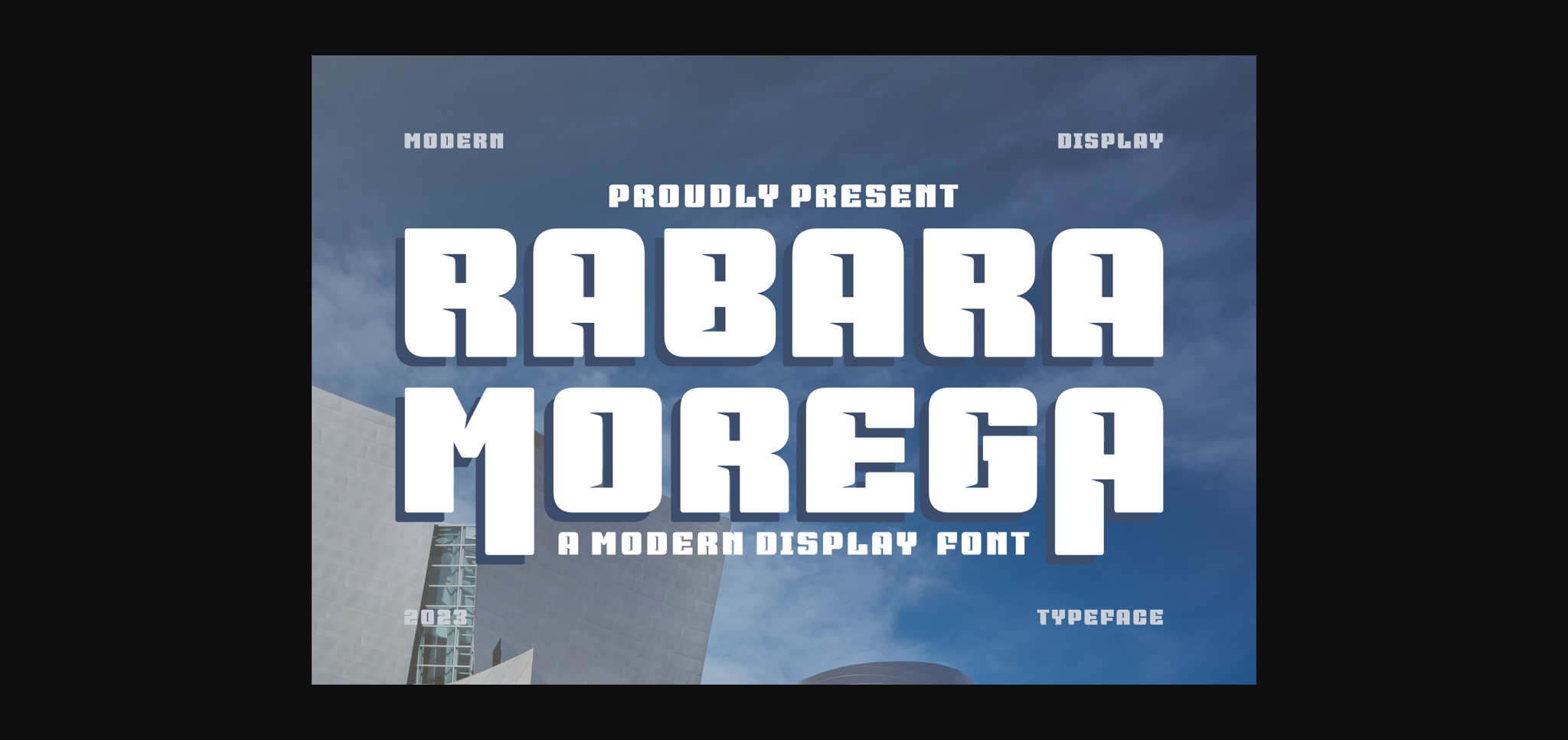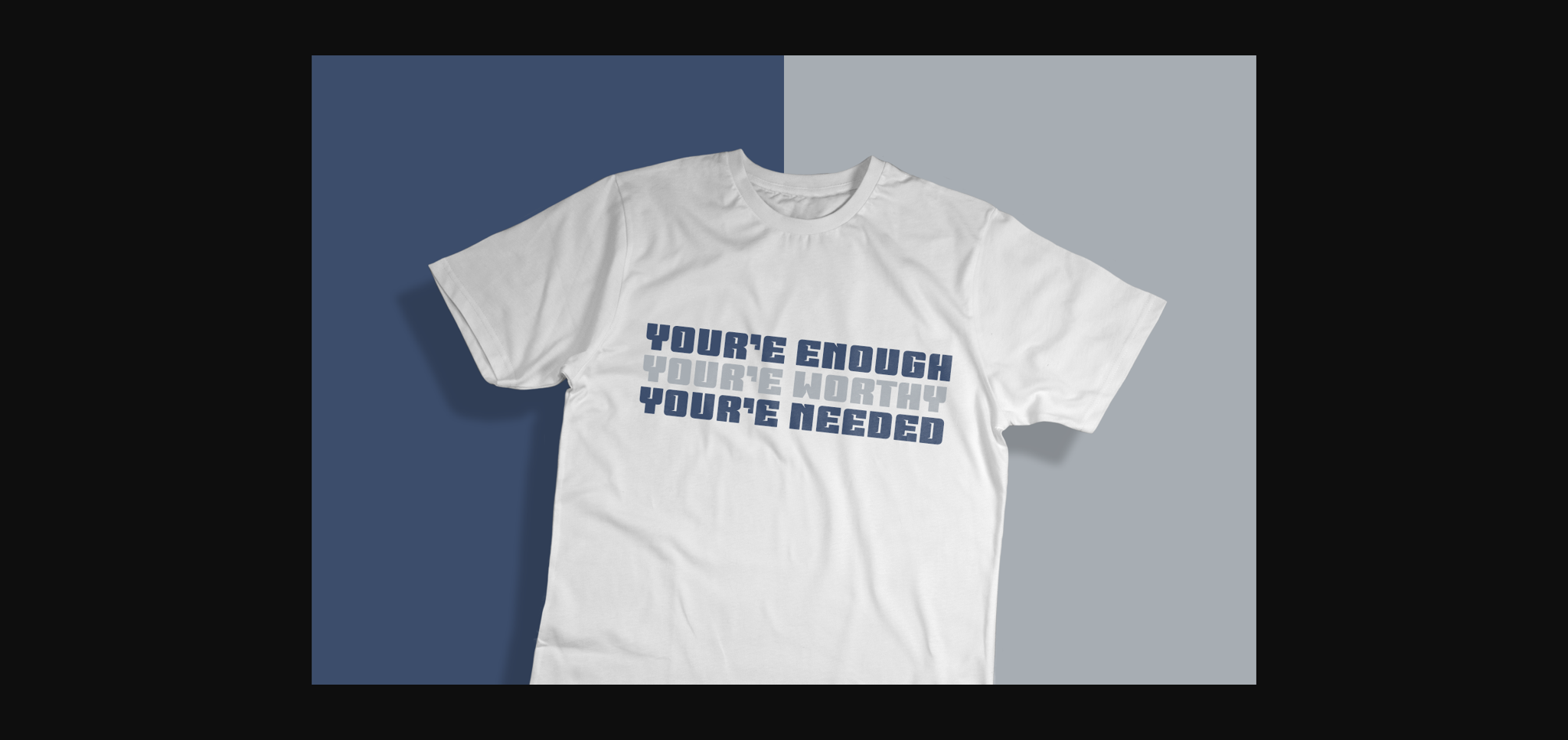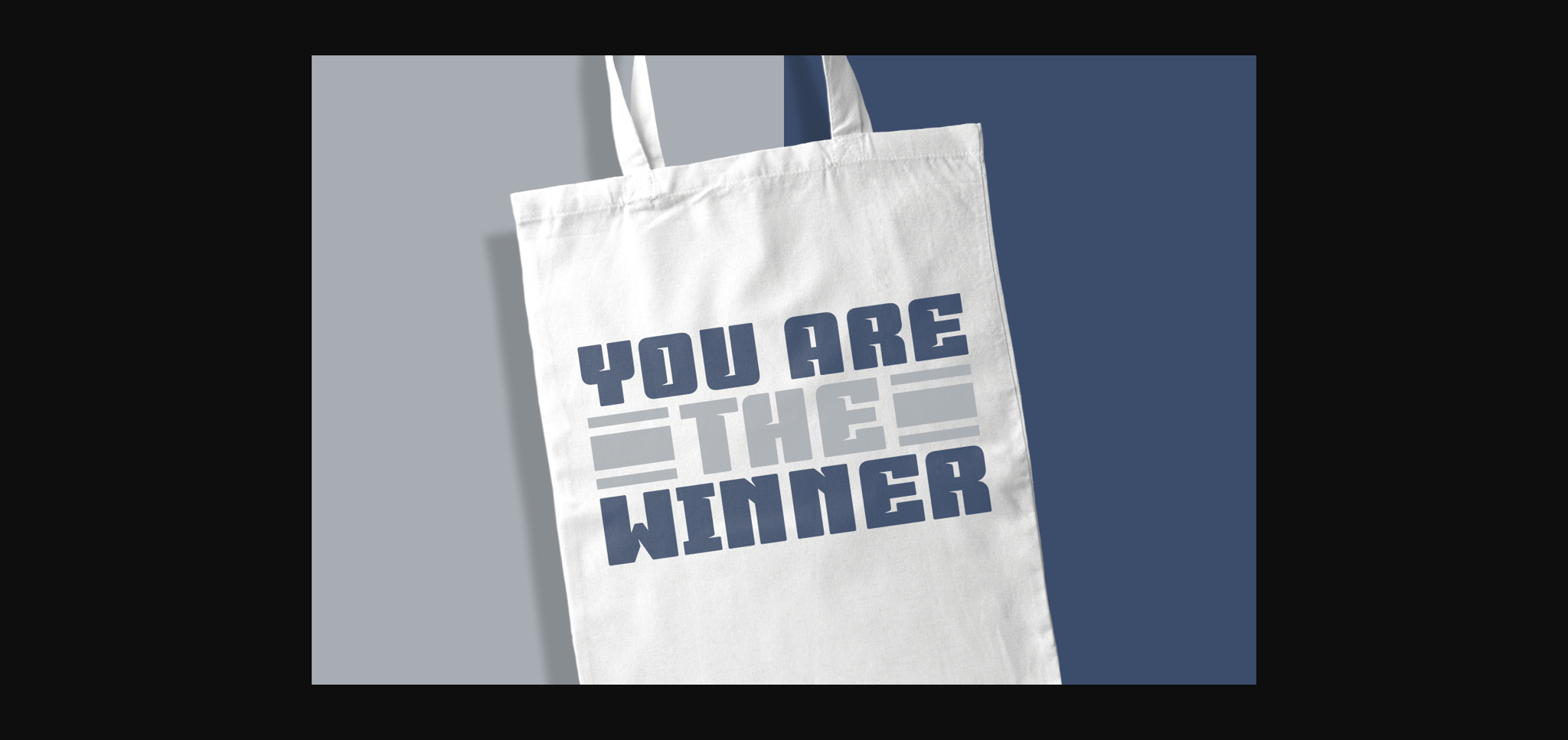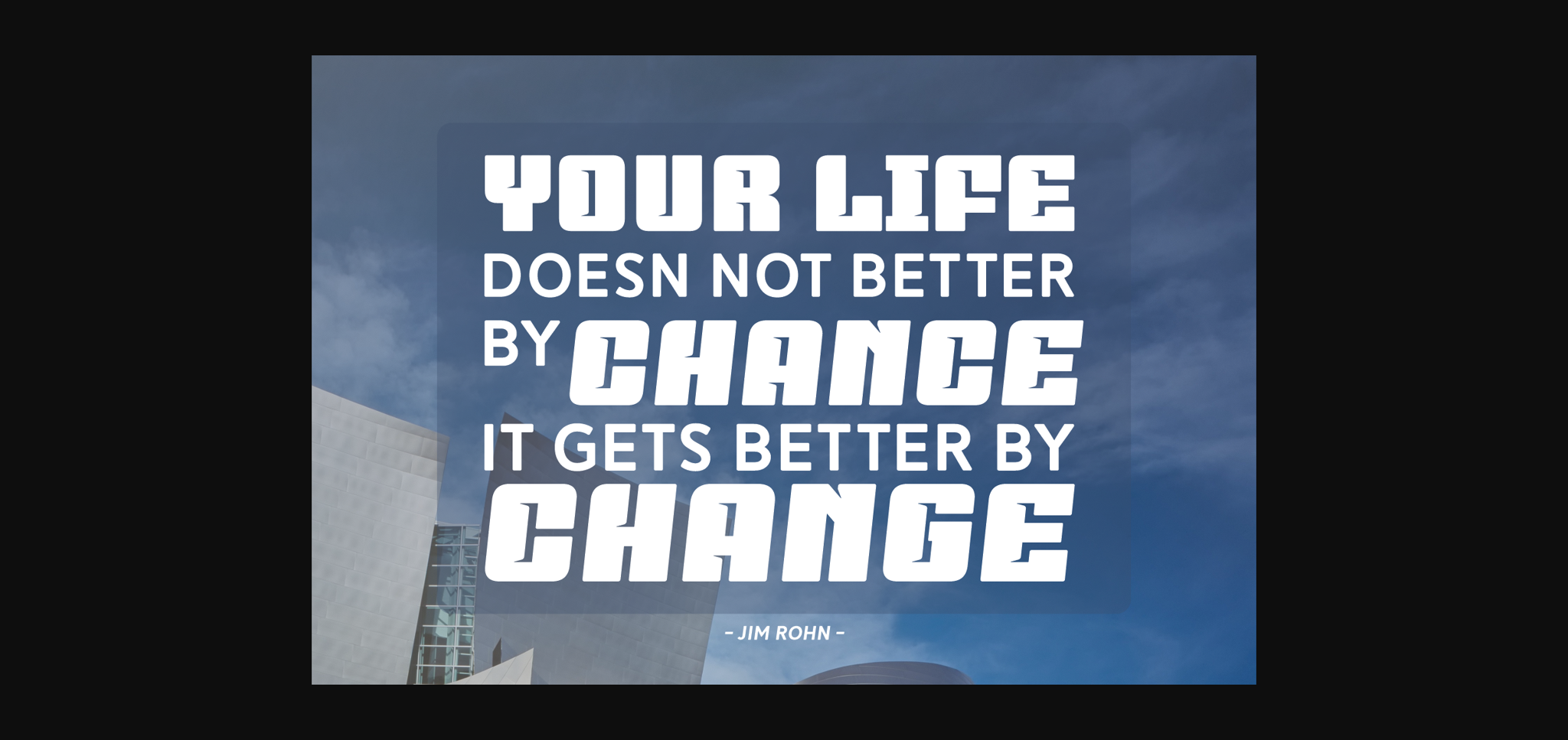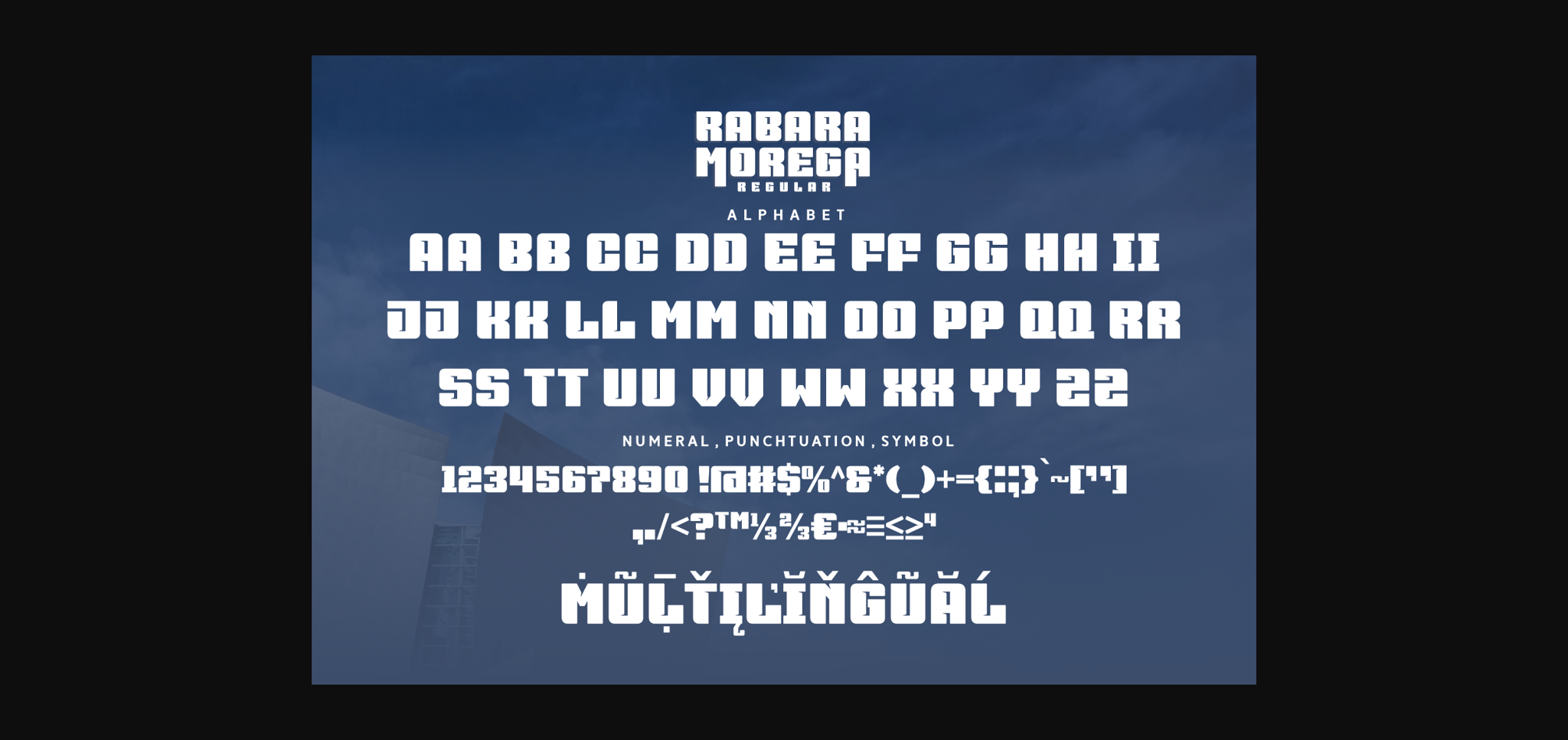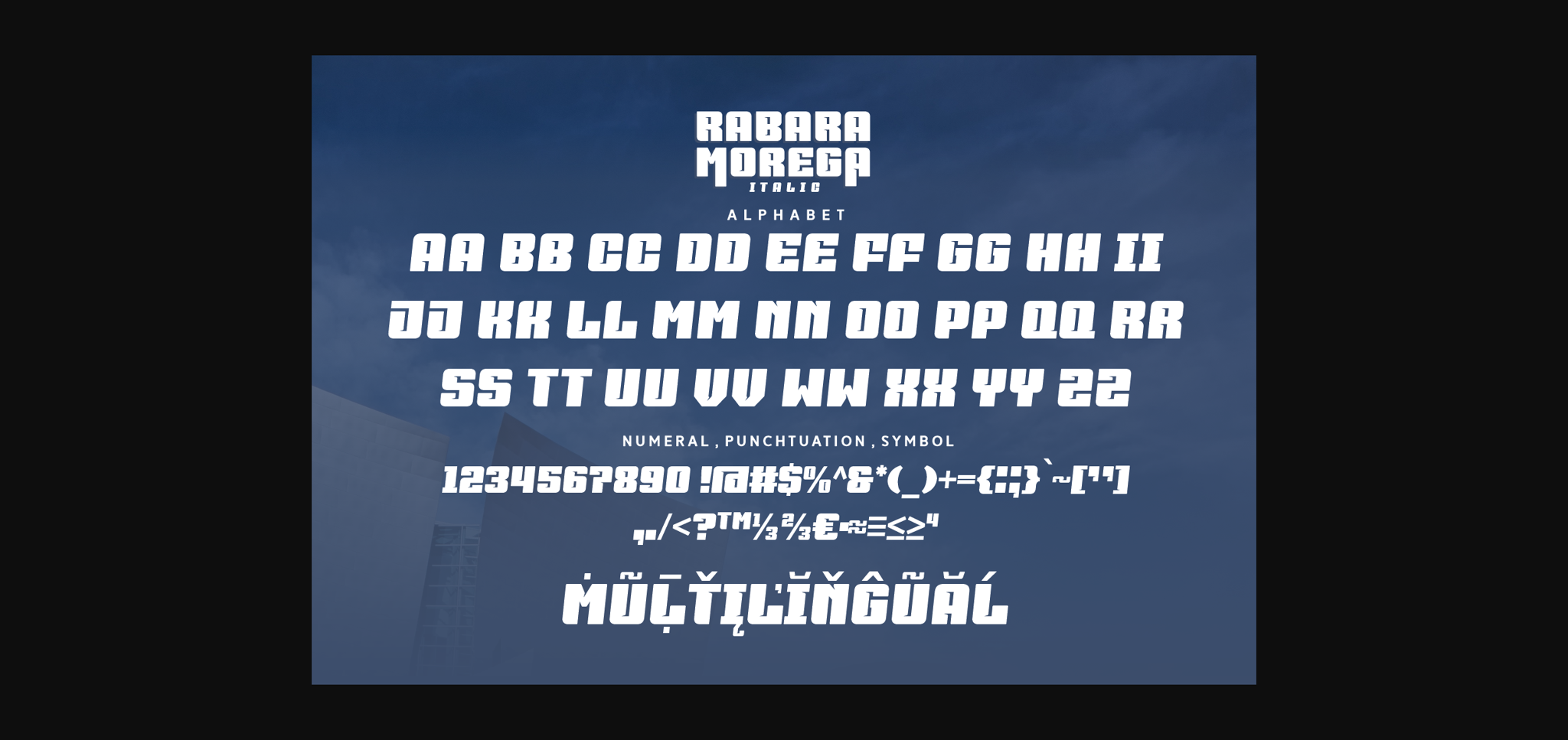
Rabara Morega Font
About Rabara Morega Font
Introducing Rabara Morega, a bold and distinct sans serif display font that captures attention with its unique letter formations. Known for its flexibility, Rabara Morega seamlessly adapts to various applications – a favored choice for product design, and beyond. Sporting an audacious character, this font breathes life into any project, striking a perfect balance between familiarity and novelty. With Rabara Morega, your designs will never fail to stand out from the crowd.